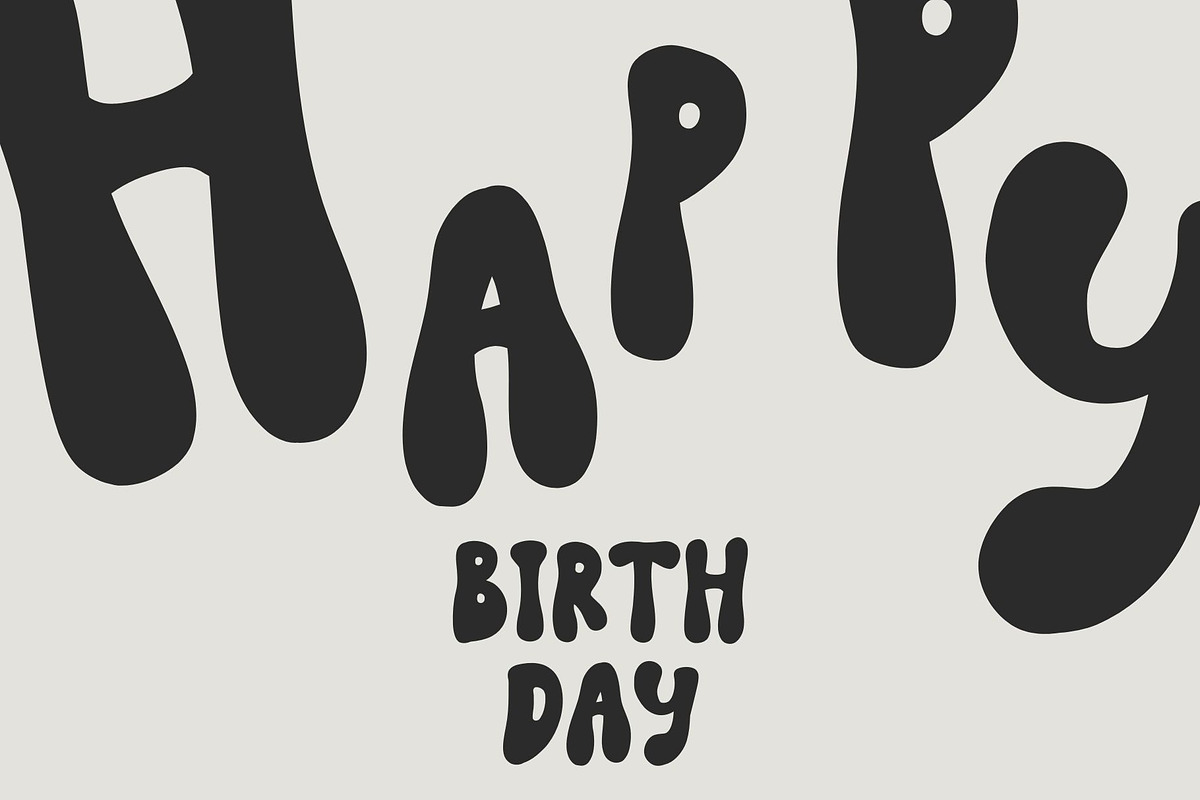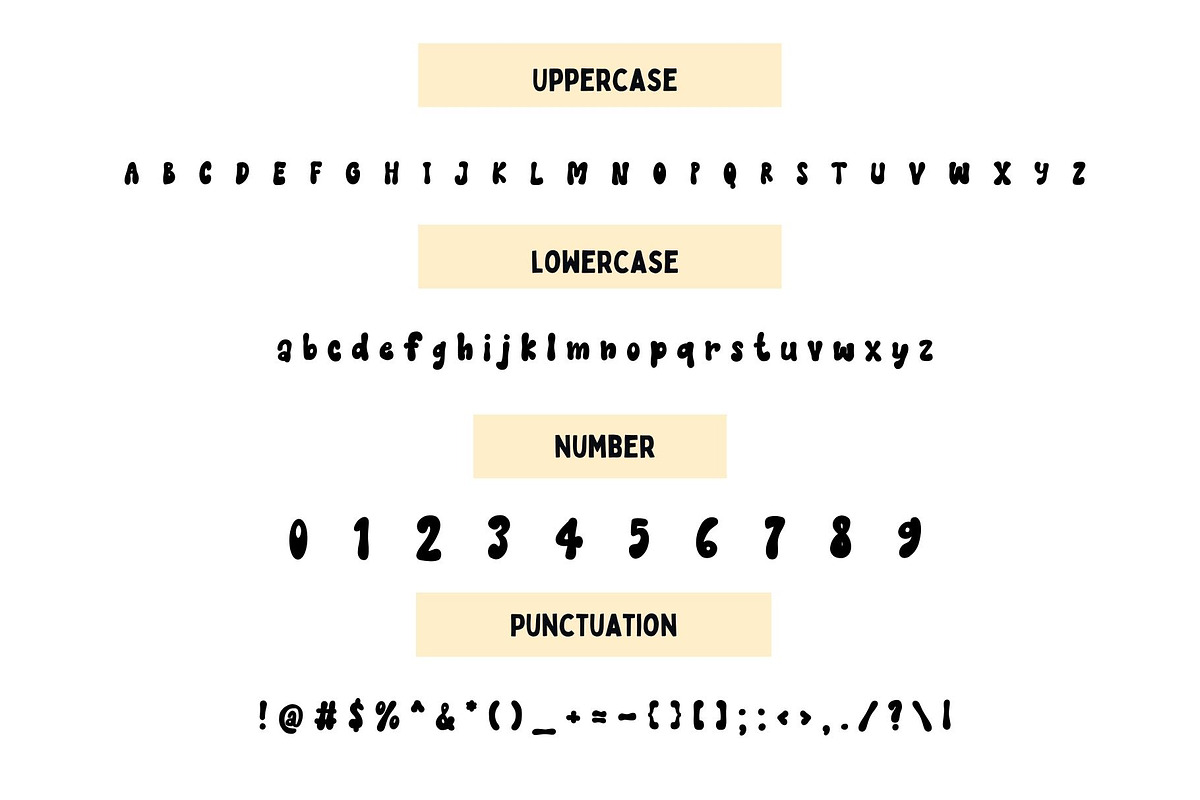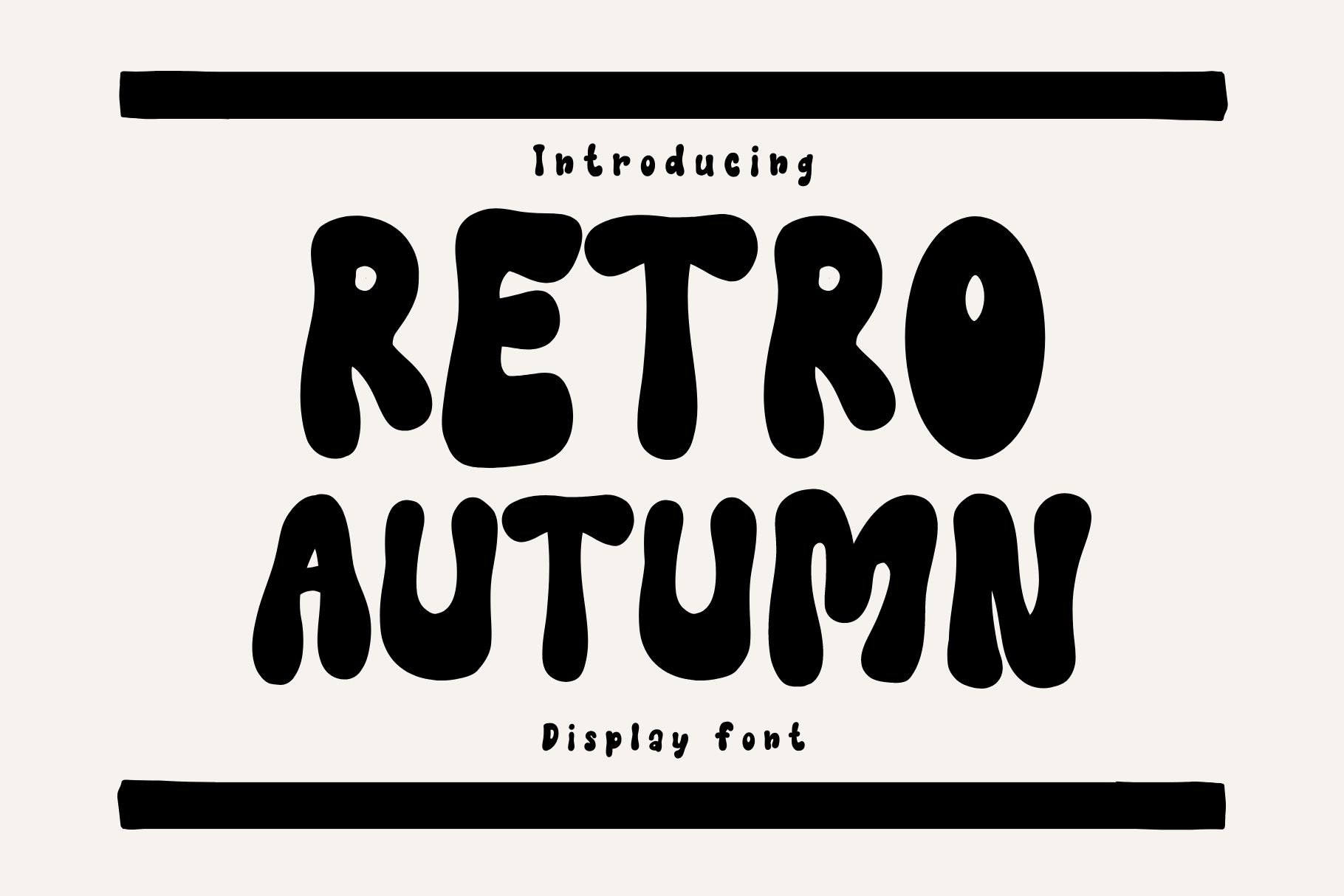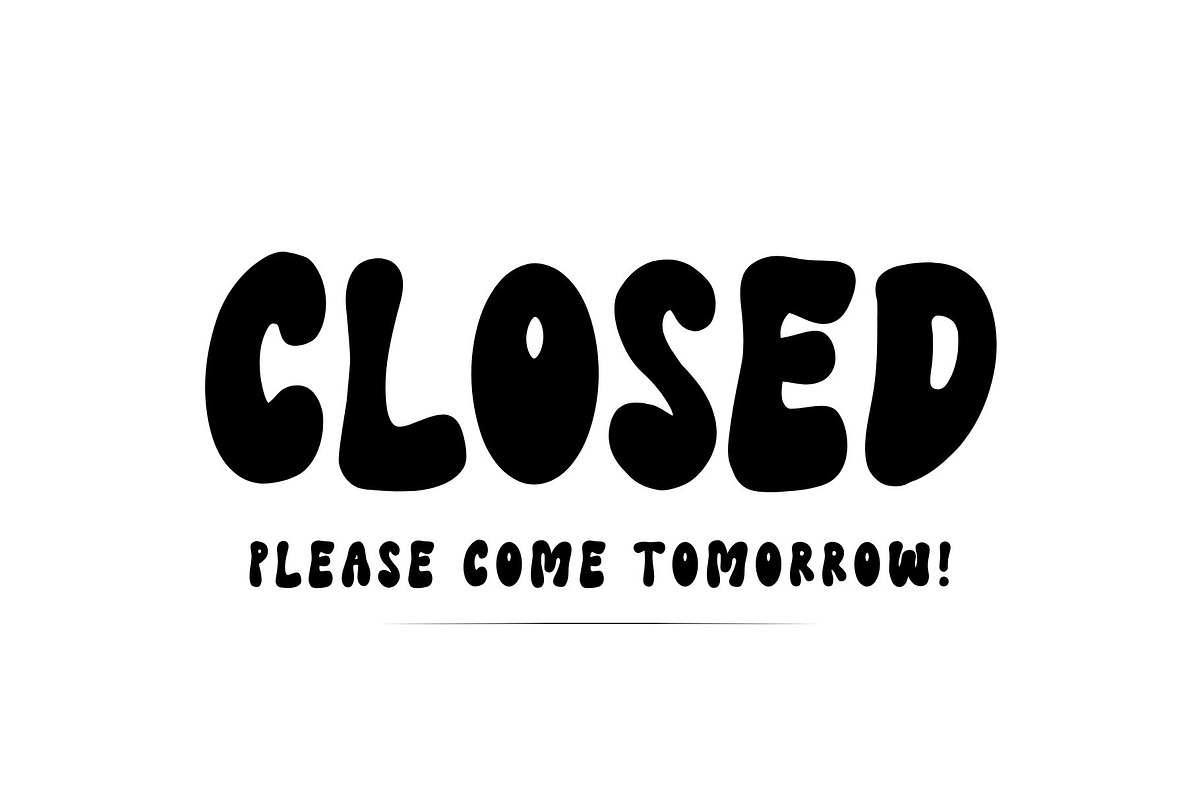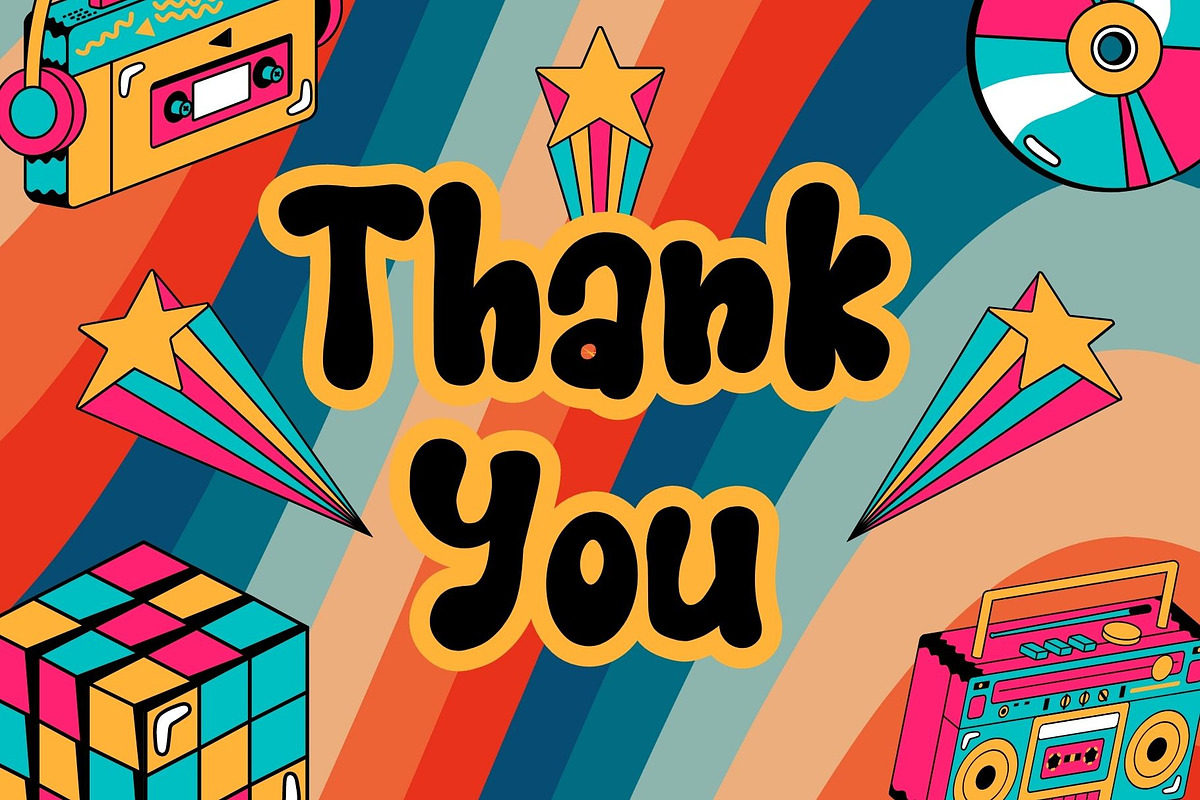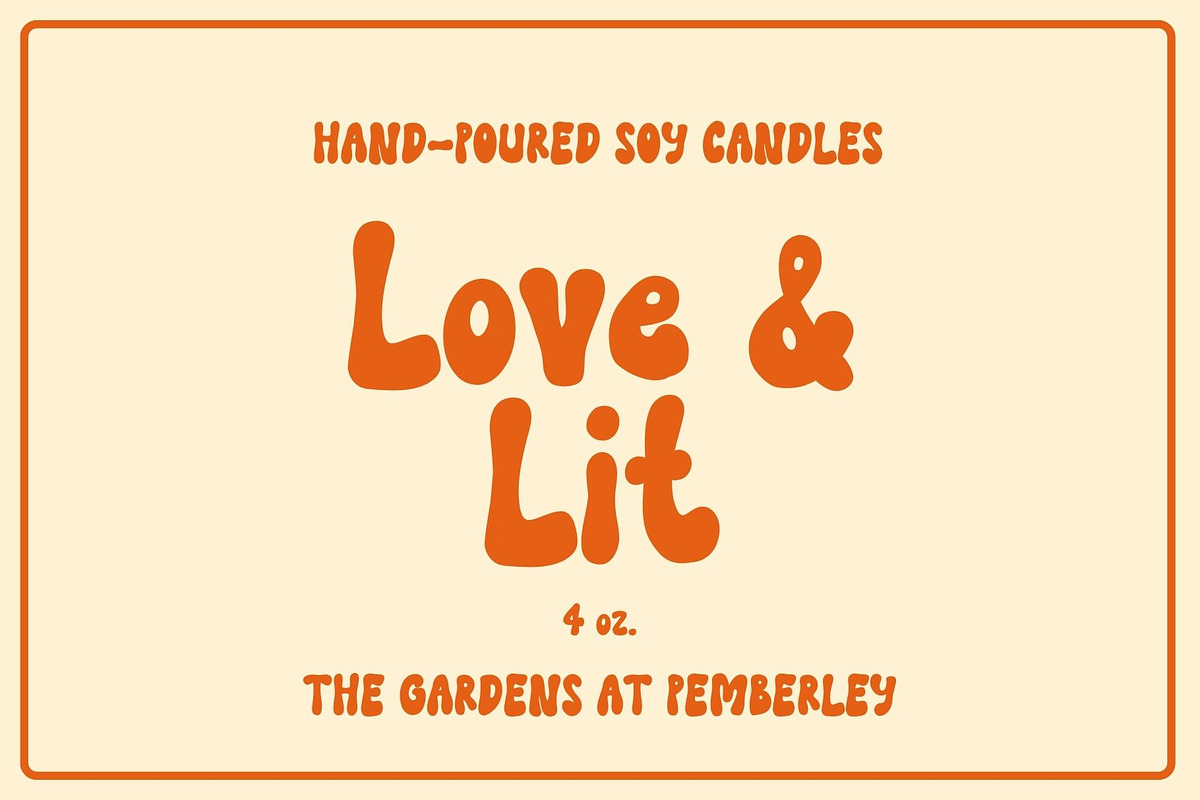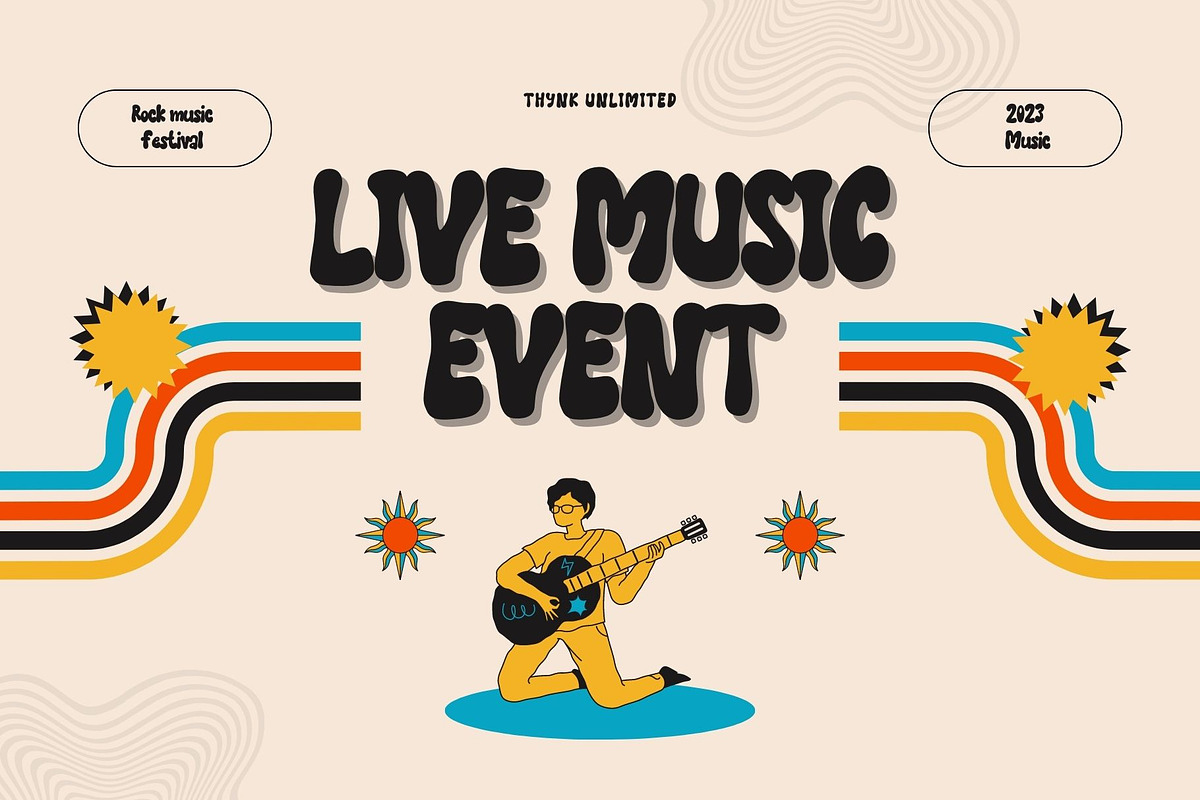
Retro Autumn is a retro groovy font
Retro Autumn is a cool retro groovy display font. The additional elements of blood dripping and bones-like letters make an ambiance of horror Invitations, postcards, posters, and headings for a Halloween event; this font can be used in every setting.